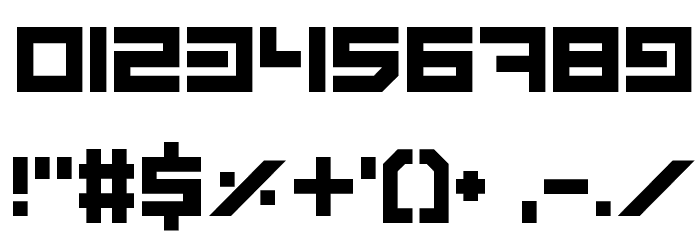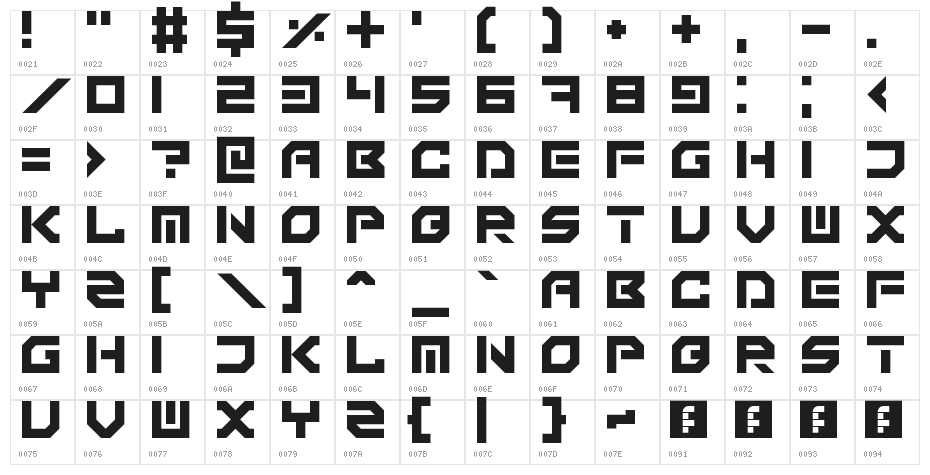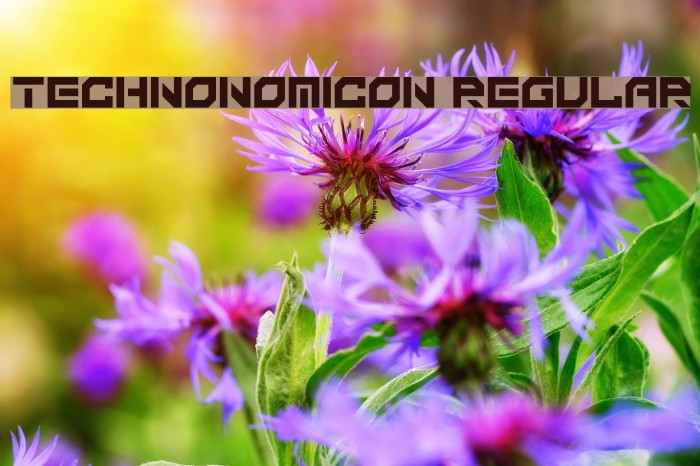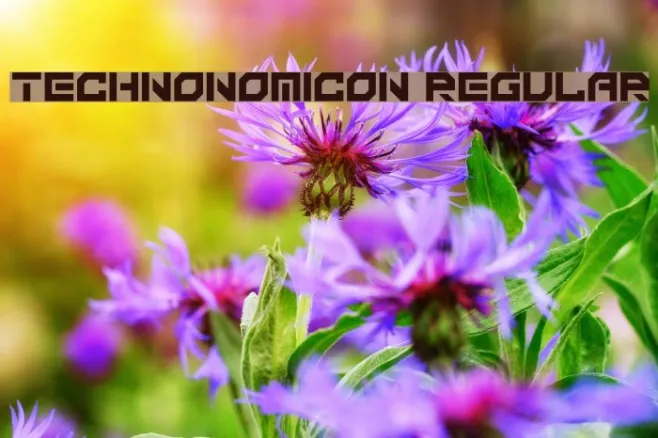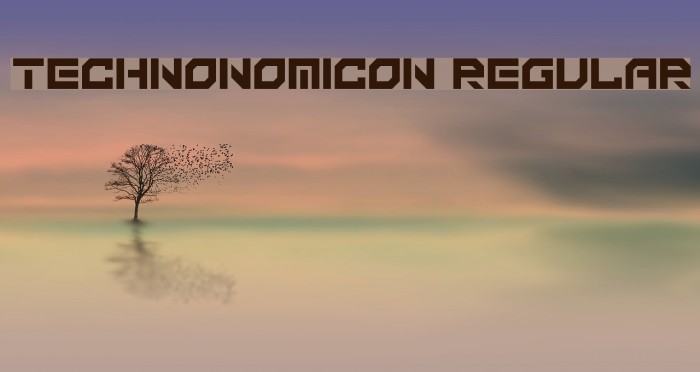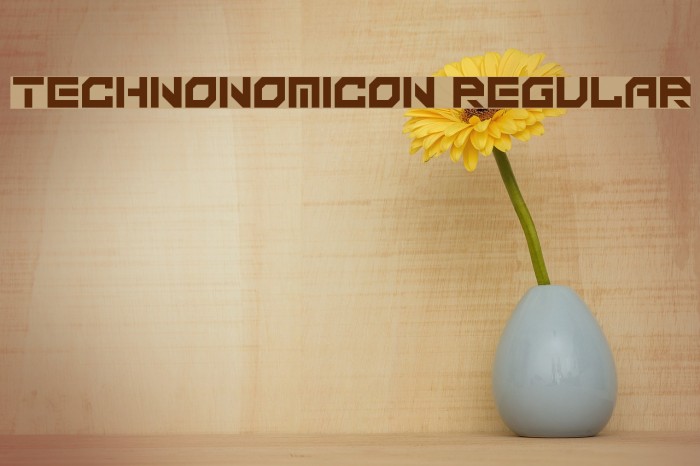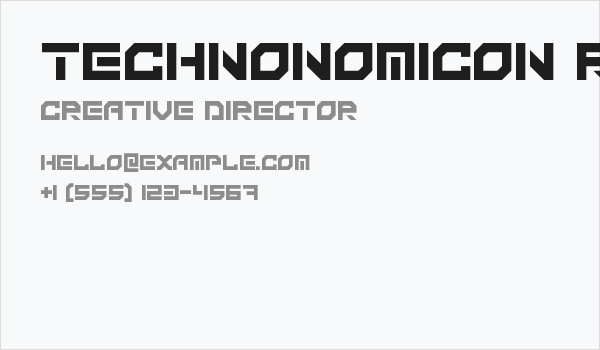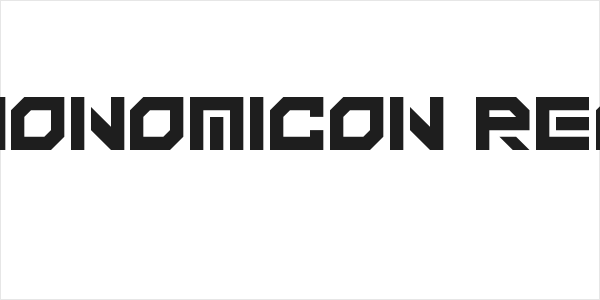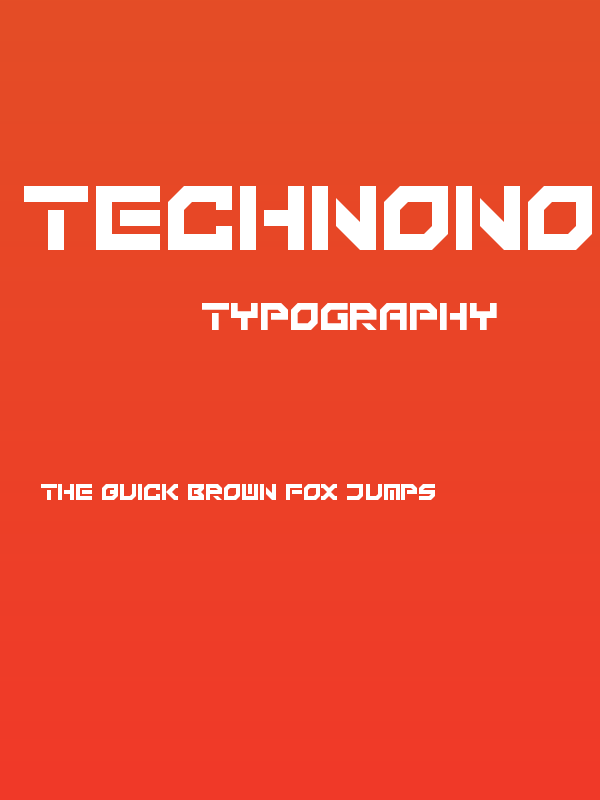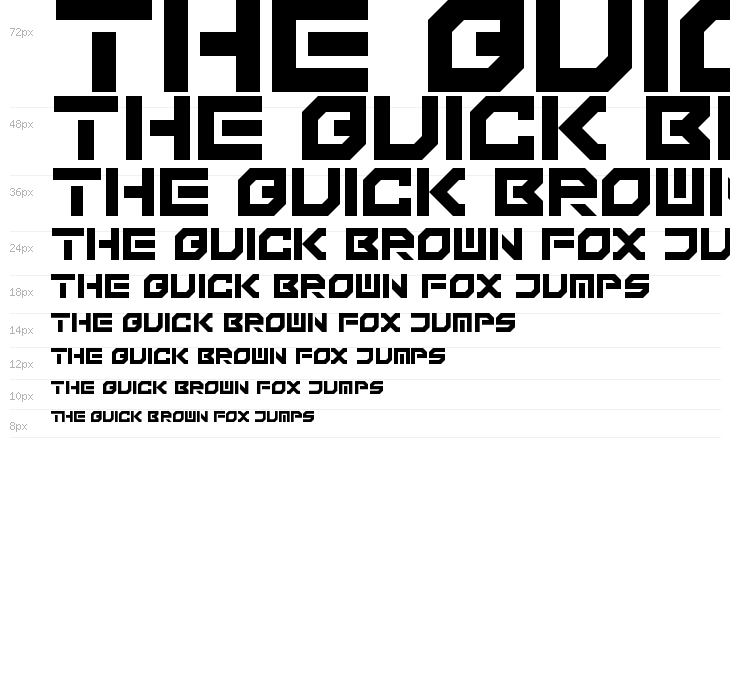
Technonomicon Regular Font
Technonomicon Regular Description
This font features a bold, geometric design with a futuristic aesthetic. The characters are constructed with sharp angles and straight lines, giving it a mechanical and digital feel. The uppercase and lowercase letters maintain a consistent style, with the lowercase being slightly smaller but equally bold. Numbers and special characters follow the same design principles, ensuring uniformity across all elements. The font's strong presence makes it suitable for attention-grabbing designs, while its clear structure ensures readability.
| Proposed Projects | Ideal for technology-themed projects, video game titles, sci-fi movie posters, and branding for tech companies. |